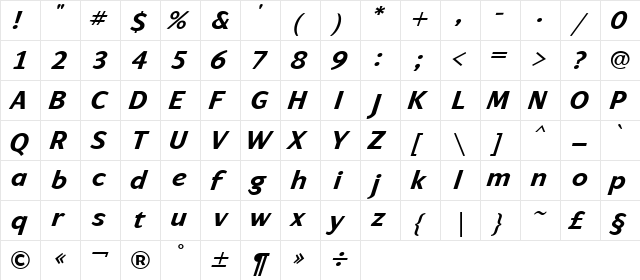
ArtemiusSans ItalicBold Font Preview
| Foundry | Letterhead studio especially for ArtLebedev Group. Created by Yuri Gordon |
Design Context for ArtemiusSans Typeface
ArtemiusSans takes a measured approach to typography — its balanced proportions and neutral character make it a reliable workhorse for both digital and print work. The slanted form adds forward momentum and visual energy. The heavy weight commands attention and anchors typographic hierarchies.
Pro Tip: Try ArtemiusSans for annotation and caption copy alongside an upright companion — the contrast in angle creates a dynamic but ordered typographic system.